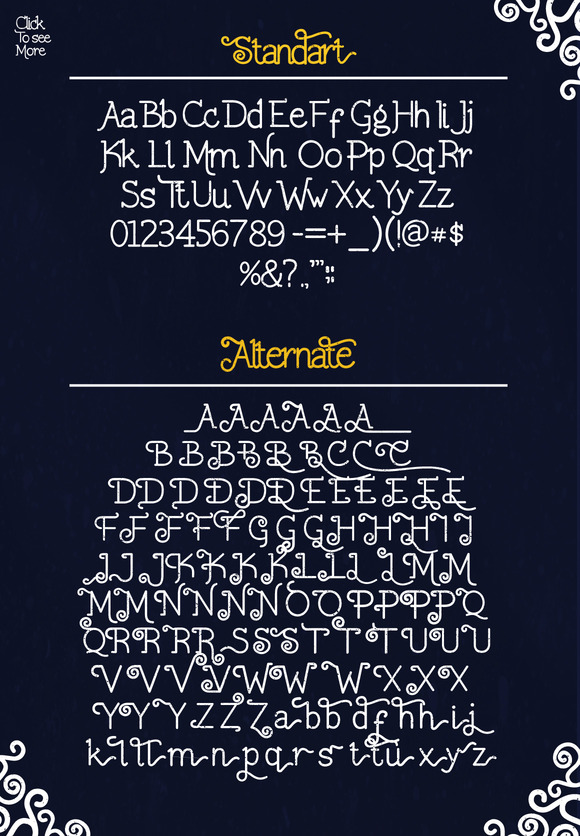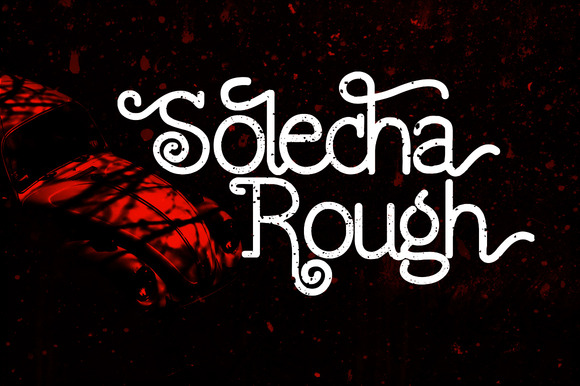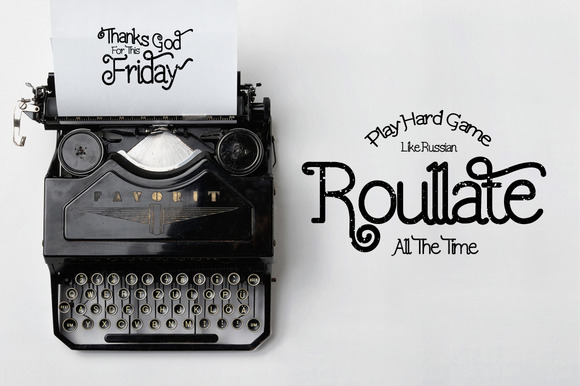
Solecha Rough Typeface
Solecha Rough is a monoline typeface with a customible style. It’s legible; making it perfect for product packaging, editorial work, and poster design, and it oozes personality; great for branding, invitations, and more.